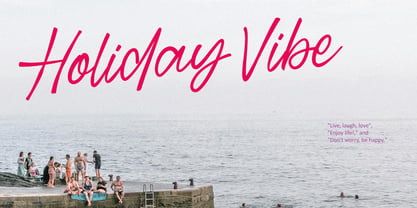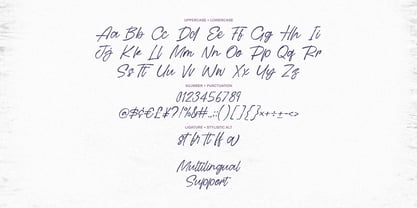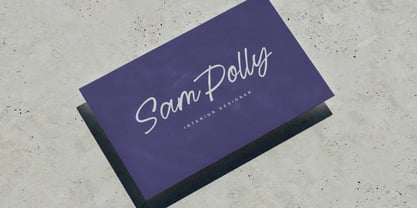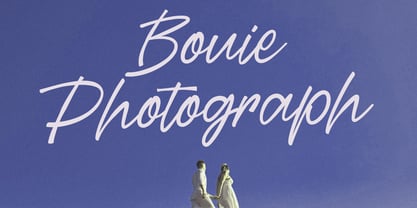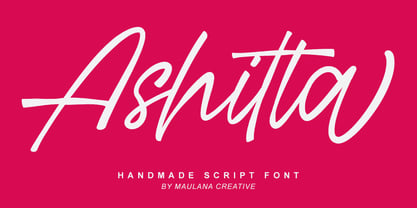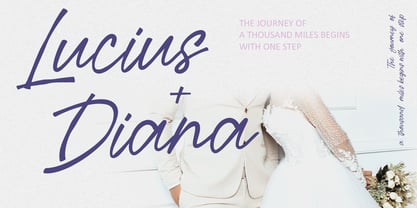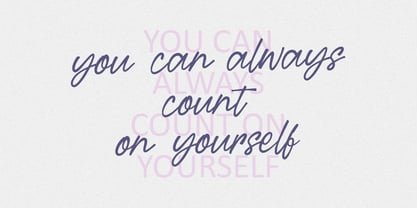
MC Ashitta
von Maulana Creative
Die Schriftfamilie MC Ashitta wurde von Gilang Maulana entworfen und von Maulana Creative veröffentlicht. MC Ashitta enthält 1 Stile. Mehr über diese Familie
Ashitta is an unique handmade signature script font. With regular contrast stroke, fun character with a bit of ligatures and alternates. To give you an extra creative work. Ashitta font support multilingual more than 100+ language. This font is good for logo design, Social media, Movie Titles, Books Titles, a short text even a long text letter and good for your secondary text font with sans or serif. Make a stunning work with Ashitta font.
Designer: Gilang Maulana
Foundry: Maulana Creative